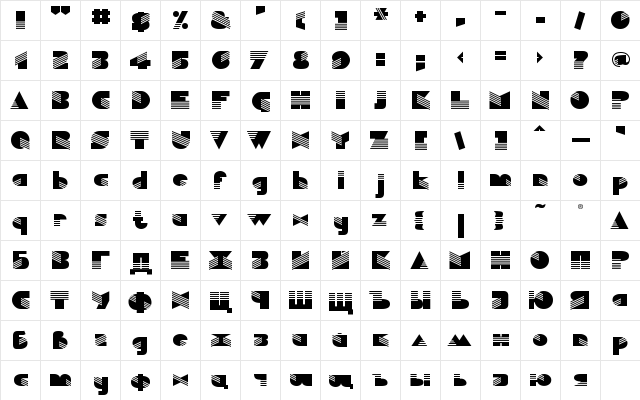
Reval_Cyr Regular
Design Context for Reval_Cyr Typeface
Reval_Cyr is a composed and adaptable typeface that performs quietly and consistently across a wide range of design contexts.